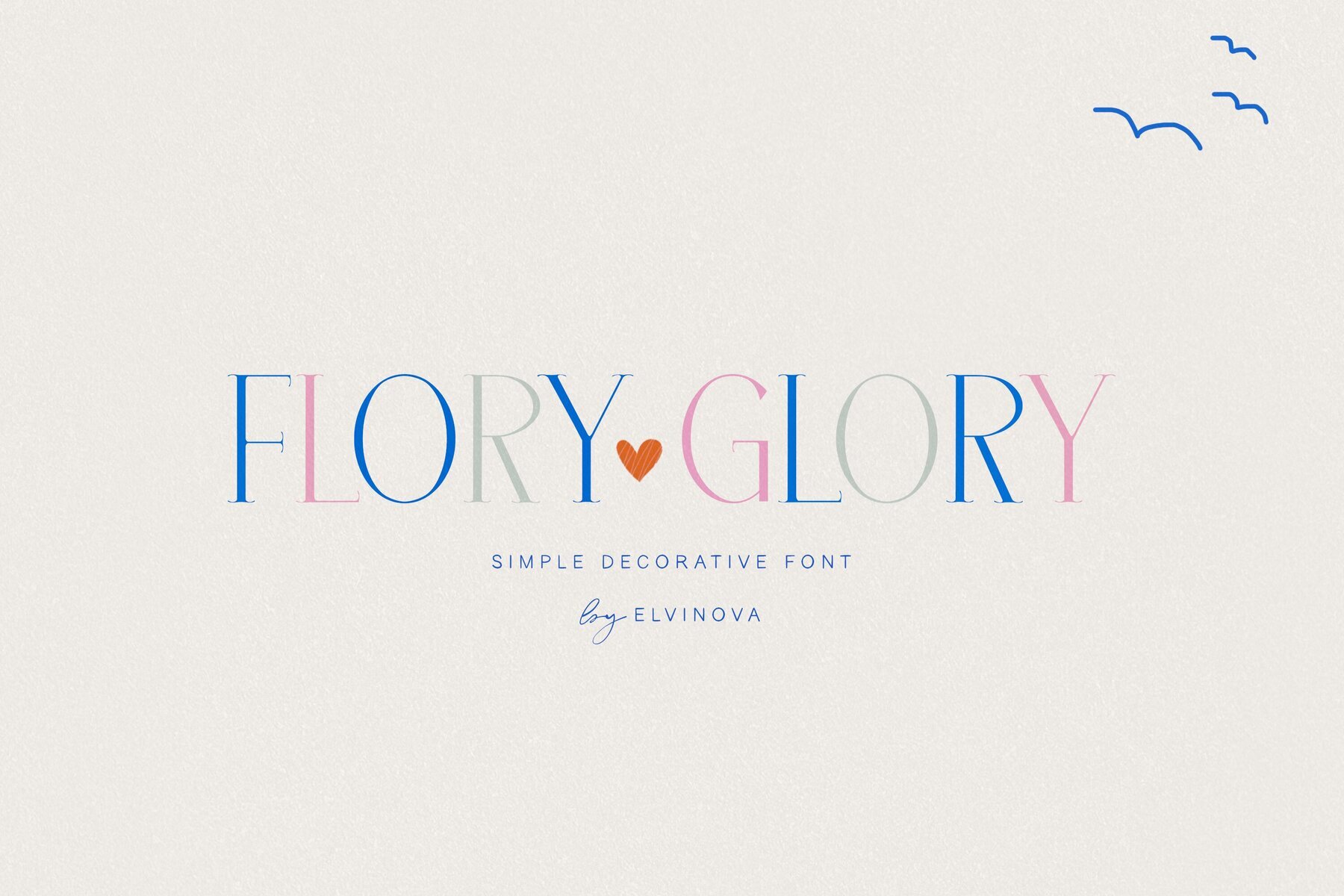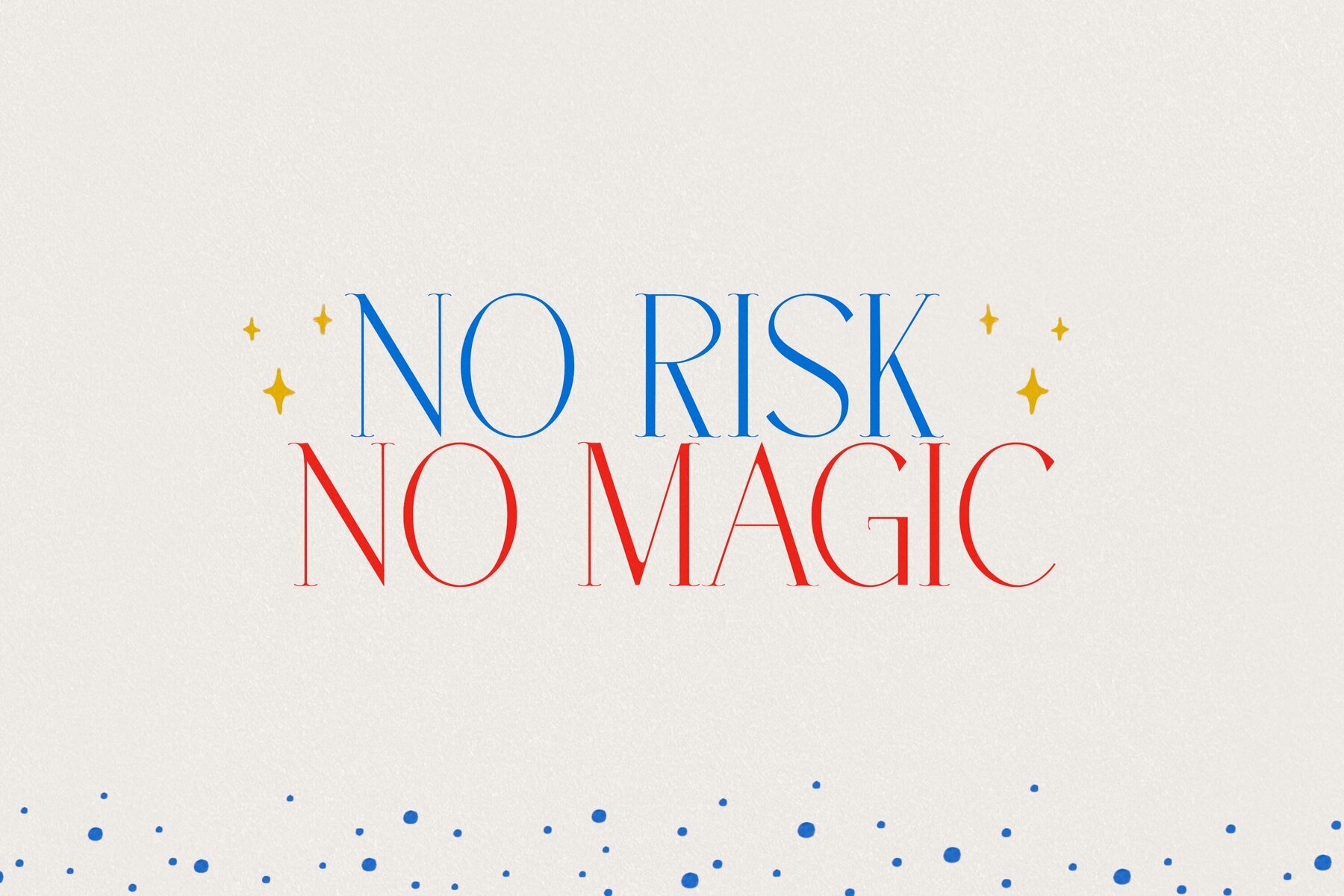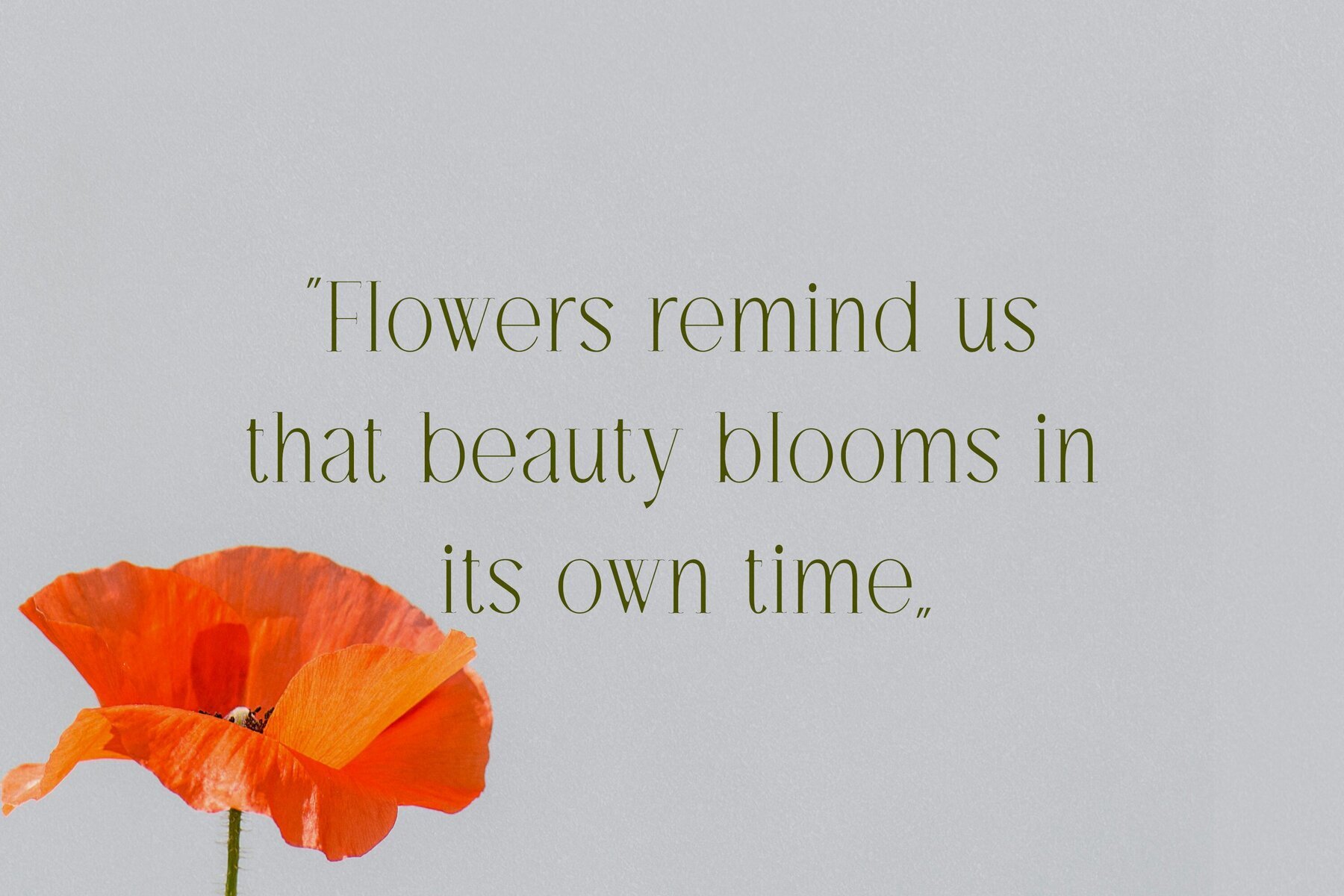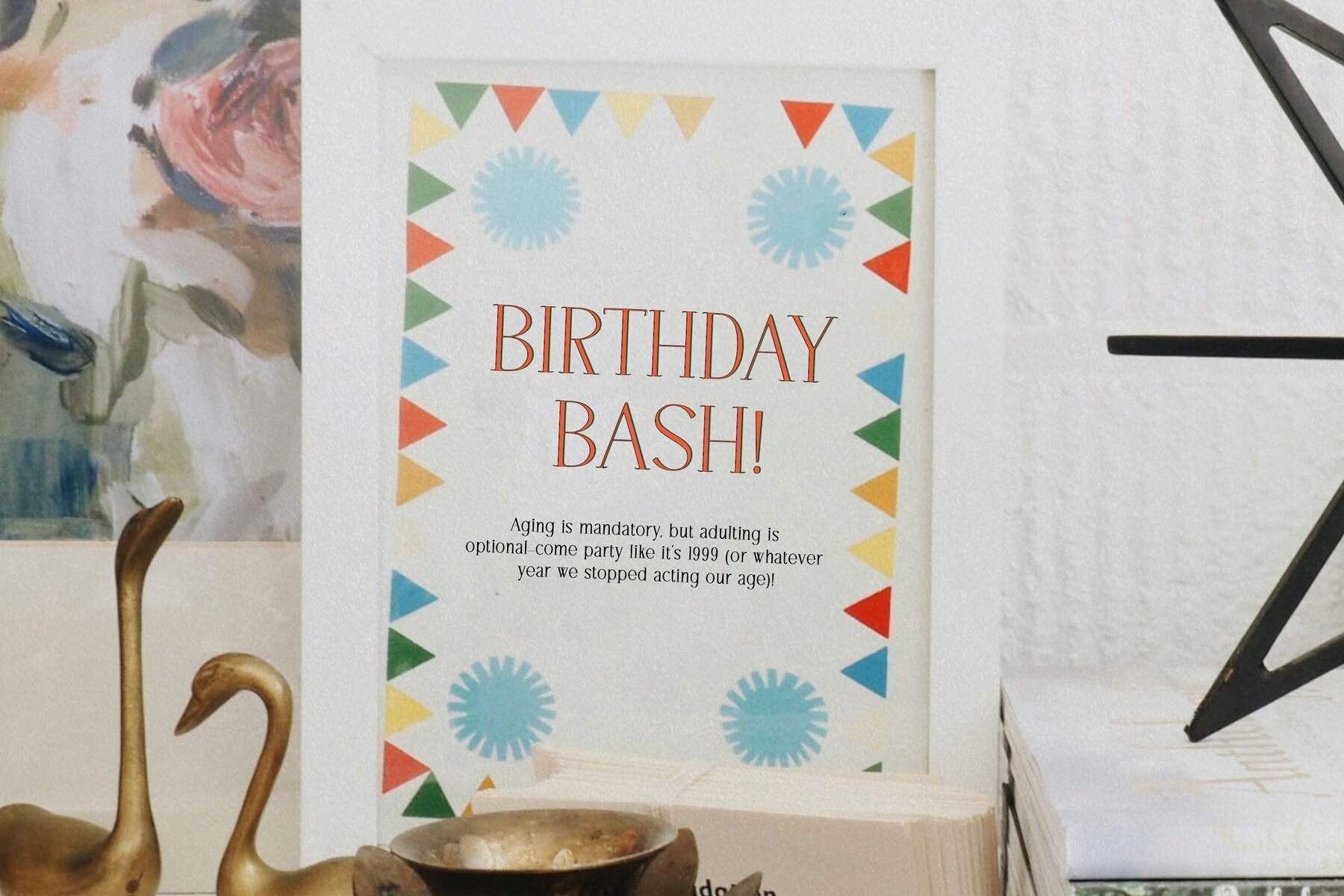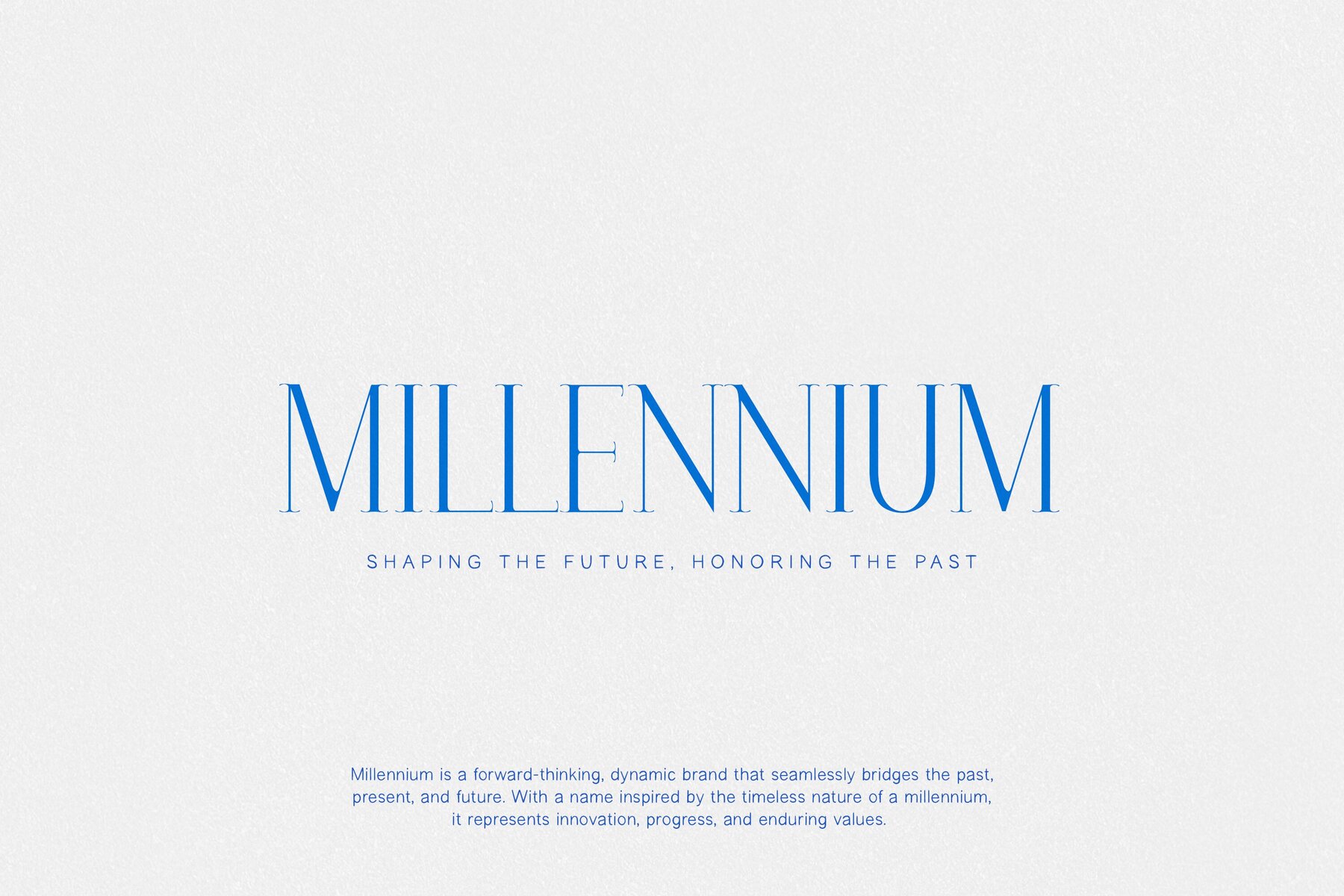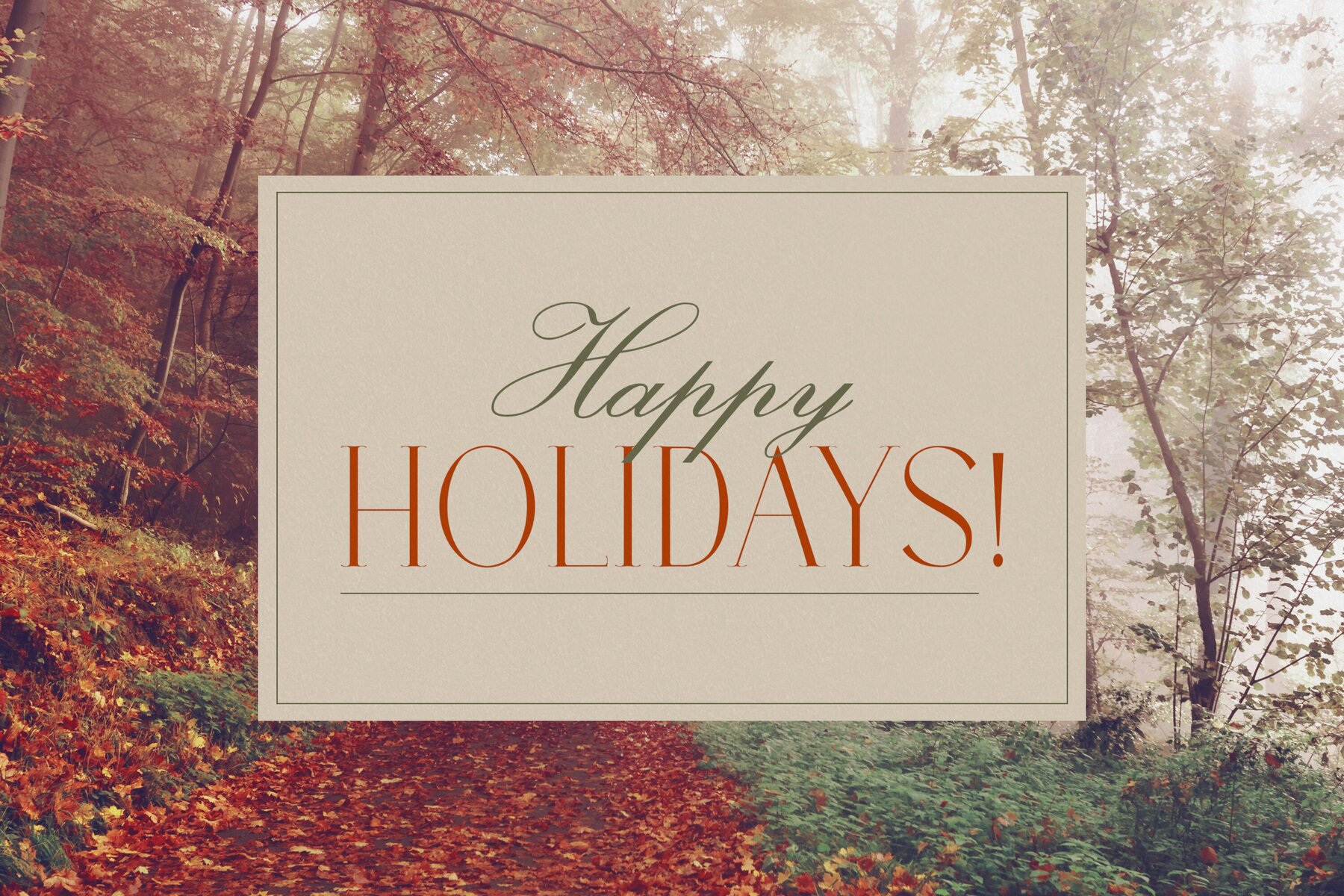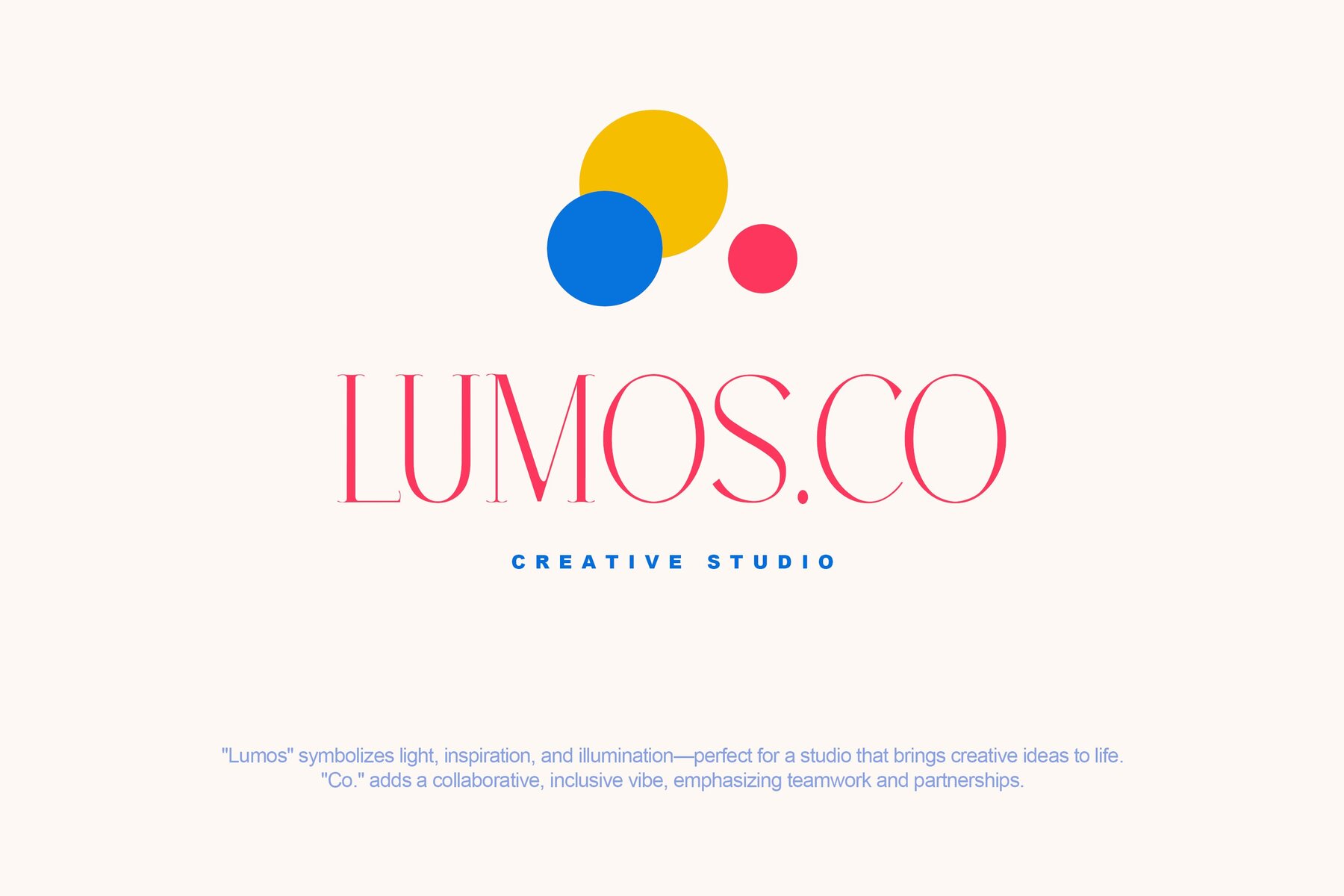
Flory Glory Font
Flory Glory is a thin, decorative serif font that offers a touch of elegance and charm, making it an ideal choice for headings and long text. This font adds a cute accent to designs with its light and friendly appearance, infusing warmth into any project.
Available in both Regular and Bold weights, Flory Glory includes a full set of uppercase and lowercase letters, numbers, and punctuation marks. It supports multiple languages, including English, German, French, Spanish, Italian, and many more, making it versatile for diverse linguistic projects. Whether you're working on a playful branding project or sleek editorial designs, Flory Glory delivers style and sophistication.